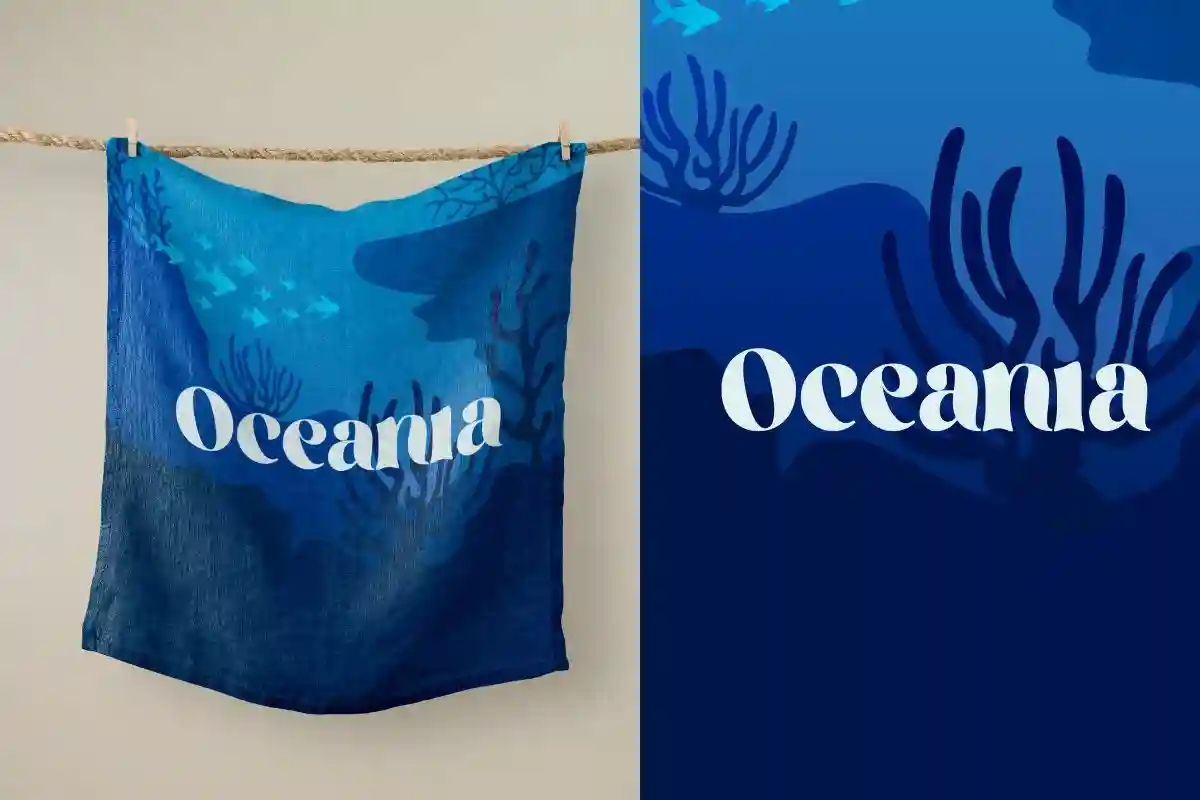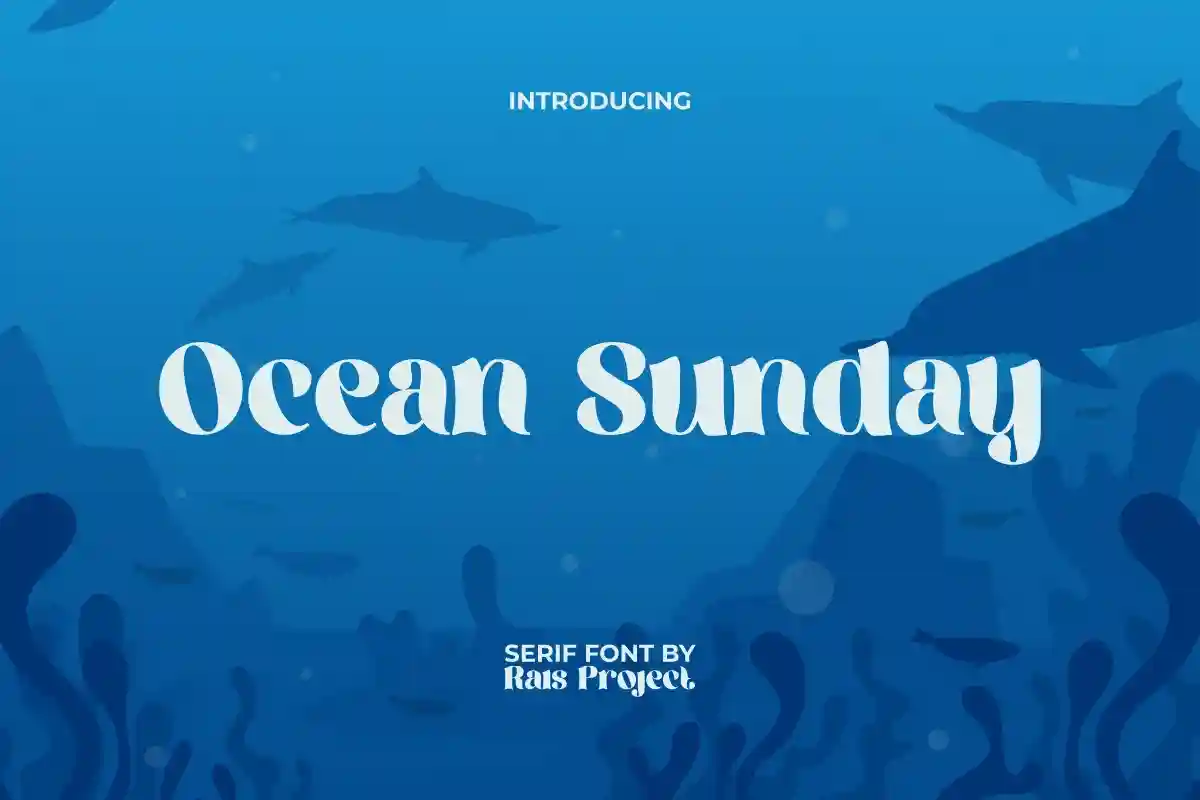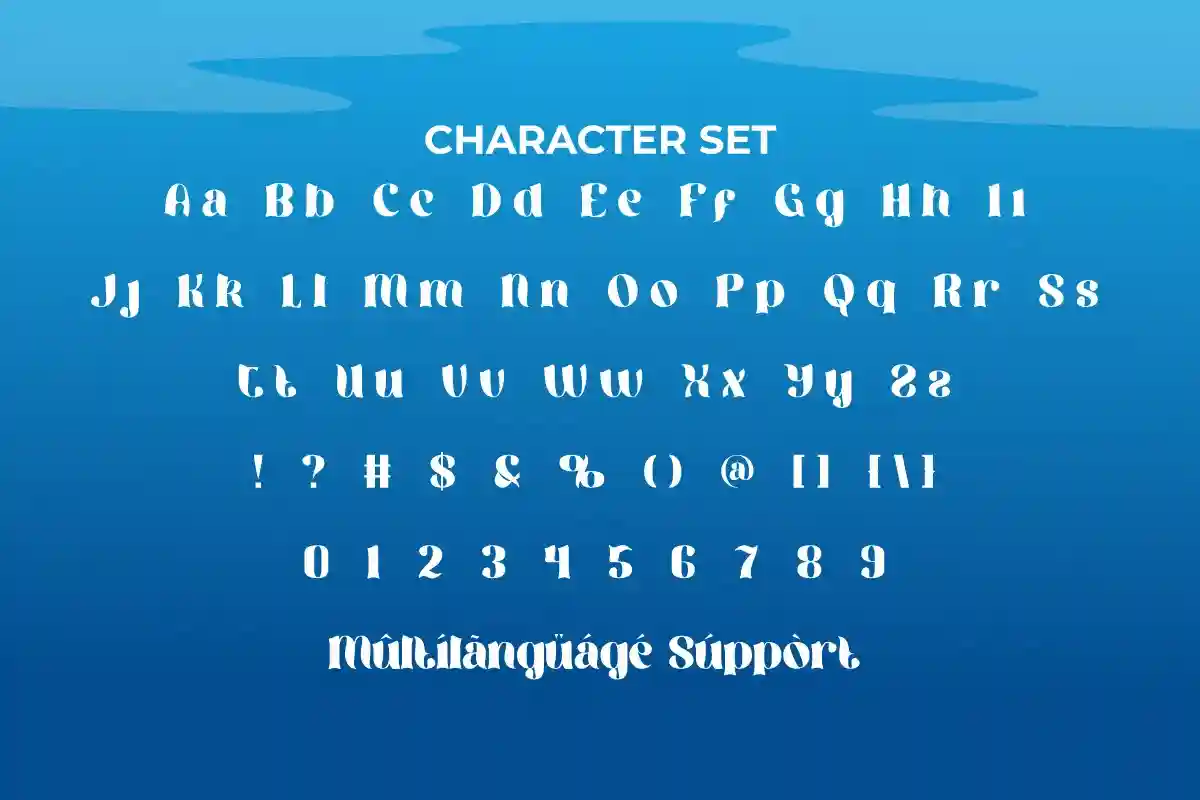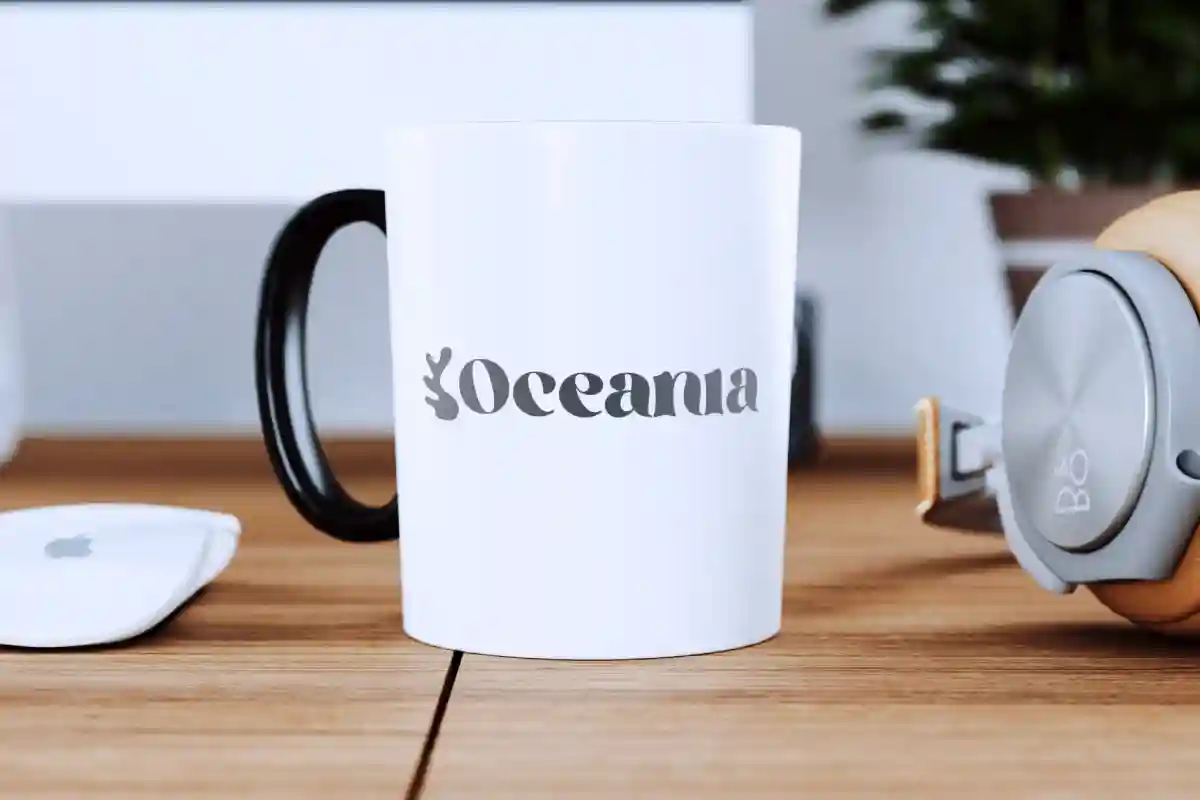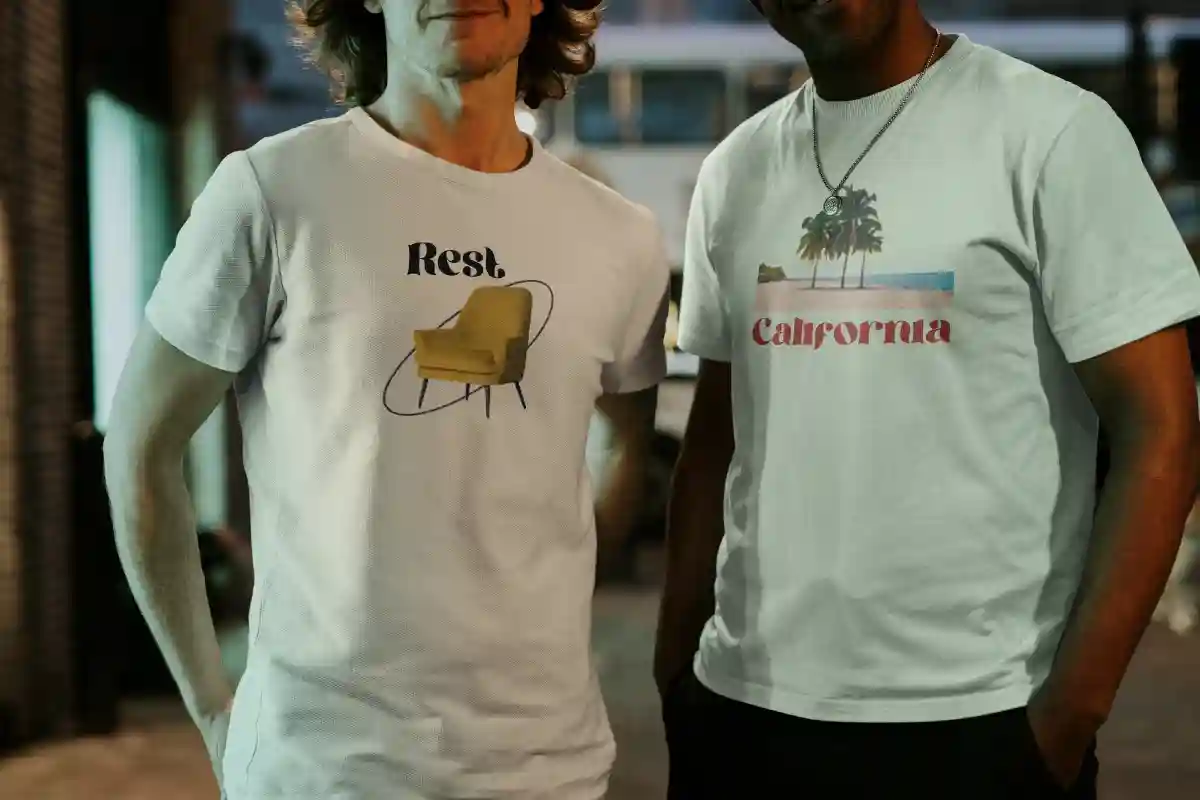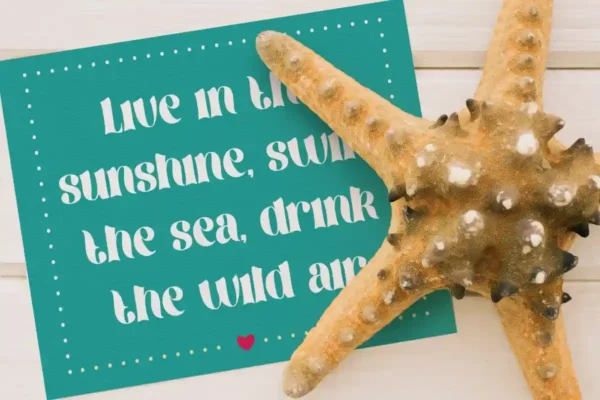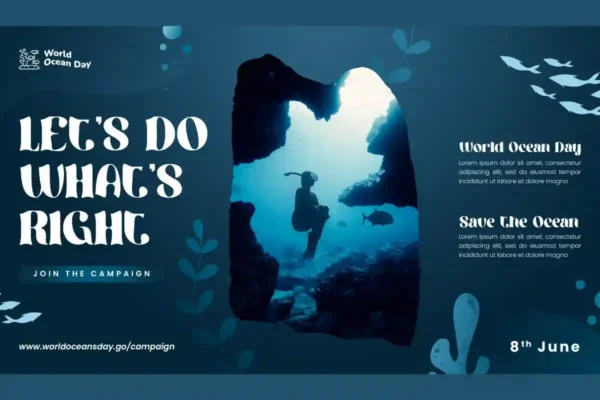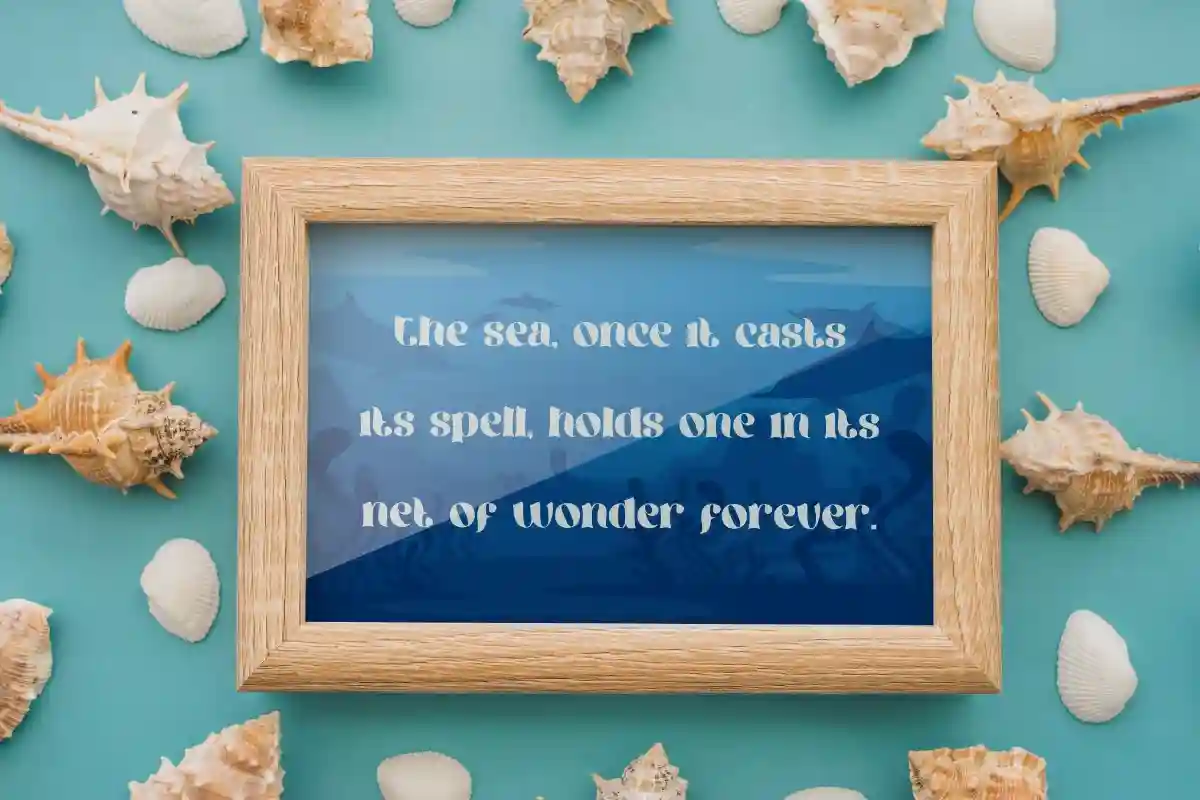
Ocean Sunday Font
Ocean Sunday Font is a delightful and stylish serif font inspired from beach and ocean theme. This font will give ocean vibes to your design.
Ocean Sunday Font is a delightful and stylish serif font inspired from beach and ocean theme. This font has a shape that resembles seaweed, making your design have a beautiful ocean feel. It will be good for any designs, such as brand image, custom design, flyer, invitation card, magazine cover, marketing material, menu, poster, product packaging, quotes, signage, stationery, website, and more!
Ocean Sunday Font including a complete set of basic Uppercase and Lowercase characters, Numerals, and large range of Punctuation. This stylish font will be suitable for various industries, such as accessories, advertising, beauty product, café, crafting, event or festival, fashion, furniture, marketing, movie, printing, publishing, real estate, restaurant, spa salon, etc.